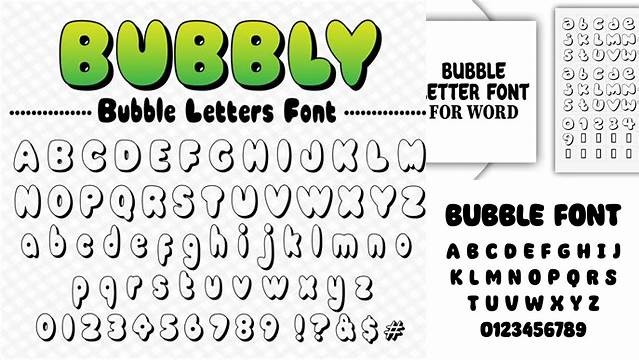
Free Bubble Letter Fonts For Word
Hey everyone! Are you looking to add some pizzazz and fun to your Microsoft Word documents? Want to create eye-catching titles, headings, or even just a playful touch to your text? Well, you're in the right place! Today, we're diving into the world of free bubble letter fonts that you can use directly in Microsoft Word. These fonts are perfect for a variety of projects, from creating invitations and posters to designing fun presentations and educational materials. Let's get started with these awesome options.
What are Bubble Letter Fonts and Why Use Them?
First things first, let's quickly define what bubble letter fonts are. Bubble letters are characterized by their rounded, inflated appearance, resembling bubbles. They are typically thick and visually appealing, making them stand out and grab attention. They are a great way to add a touch of creativity and playfulness to your designs.
But, why should you use them? Well, they're incredibly versatile! Bubble letter fonts are fantastic for a bunch of different projects. For starters, they are great for kid-friendly stuff, like birthday invitations, school projects, or anything that needs to be fun and exciting. They're also super useful for creating impactful headlines and titles in flyers, posters, and social media graphics. The thick, rounded shapes make your text pop, ensuring it's the first thing people notice.
Moreover, bubble letter fonts can inject personality into your work, adding a touch of whimsy and approachability. In a world filled with serious-looking fonts, bubble letters offer a refreshing change, making your content feel more inviting and engaging. They're also excellent for branding and marketing materials if you want your brand to appear friendly and youthful. You can incorporate bubble letters into your logo, website, or promotional materials to convey a sense of playfulness. So, whether you're a student, a designer, or just someone who loves to get creative, bubble letter fonts are a fantastic addition to your font collection!
Top Free Bubble Letter Font Resources